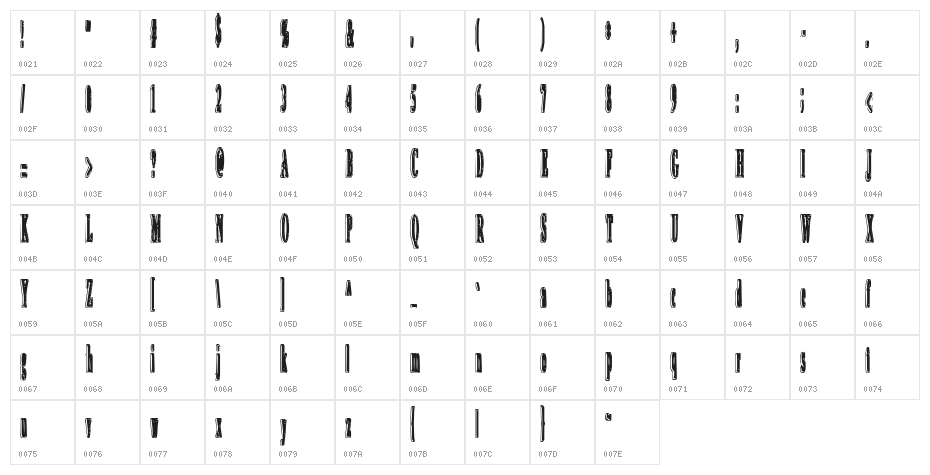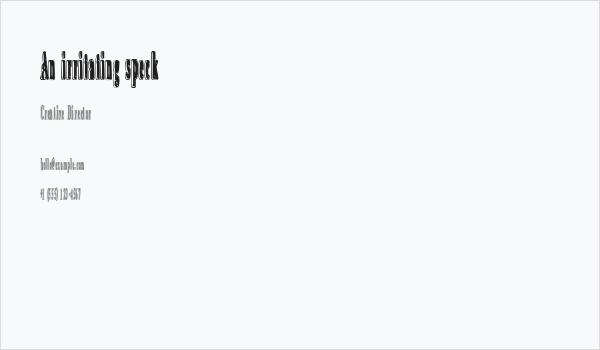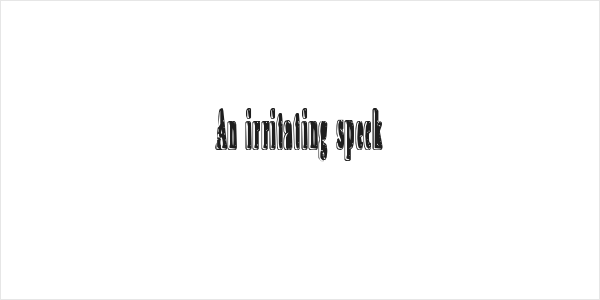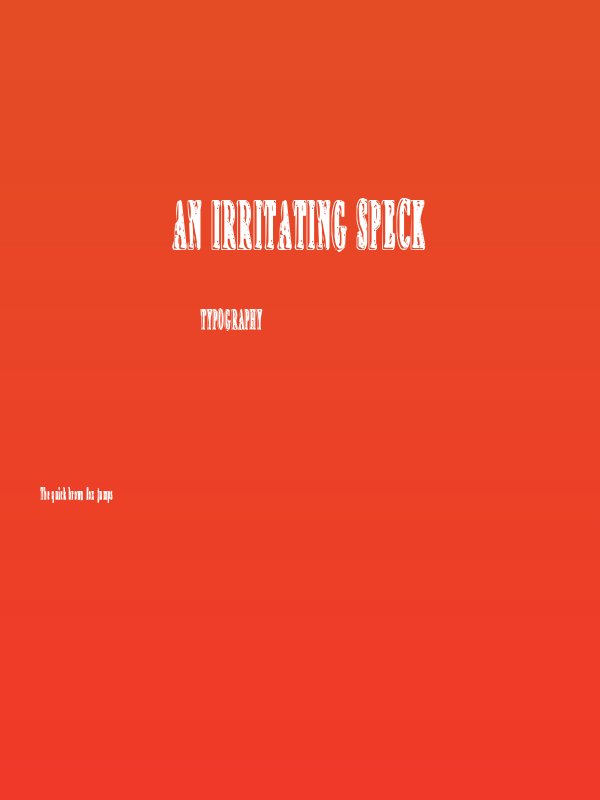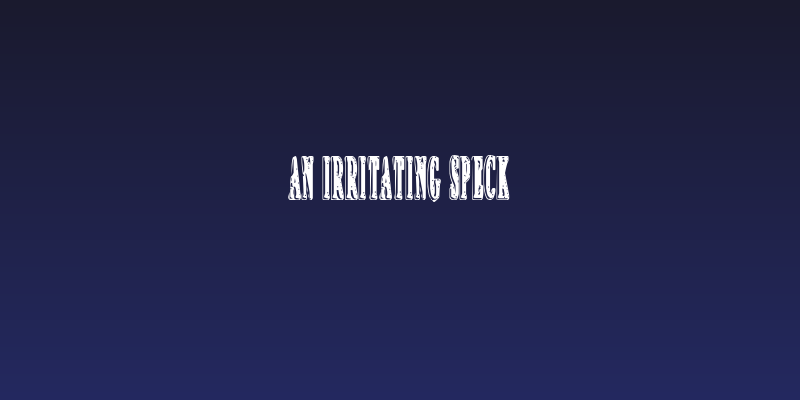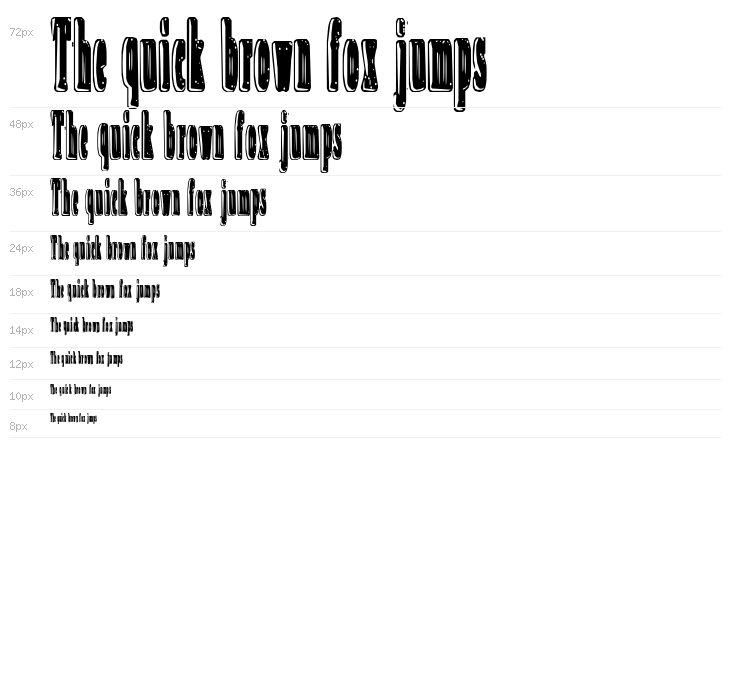
An irritating speck Font
An irritating speck Description
This font features a bold, decorative style with a distressed, vintage appearance. The characters are heavily stylized with a textured, worn look that gives them a unique, rustic charm. The uppercase and lowercase letters maintain a consistent design, with thick strokes and a slightly condensed form. Numbers and special characters follow the same aesthetic, making the font cohesive across all elements. The distressed detailing adds a sense of depth and character, making it stand out in any design project.
Overall StyleVintage
Proposed ProjectsIdeal for vintage-themed posters, logos, branding, and packaging designs that require a rustic or retro feel.